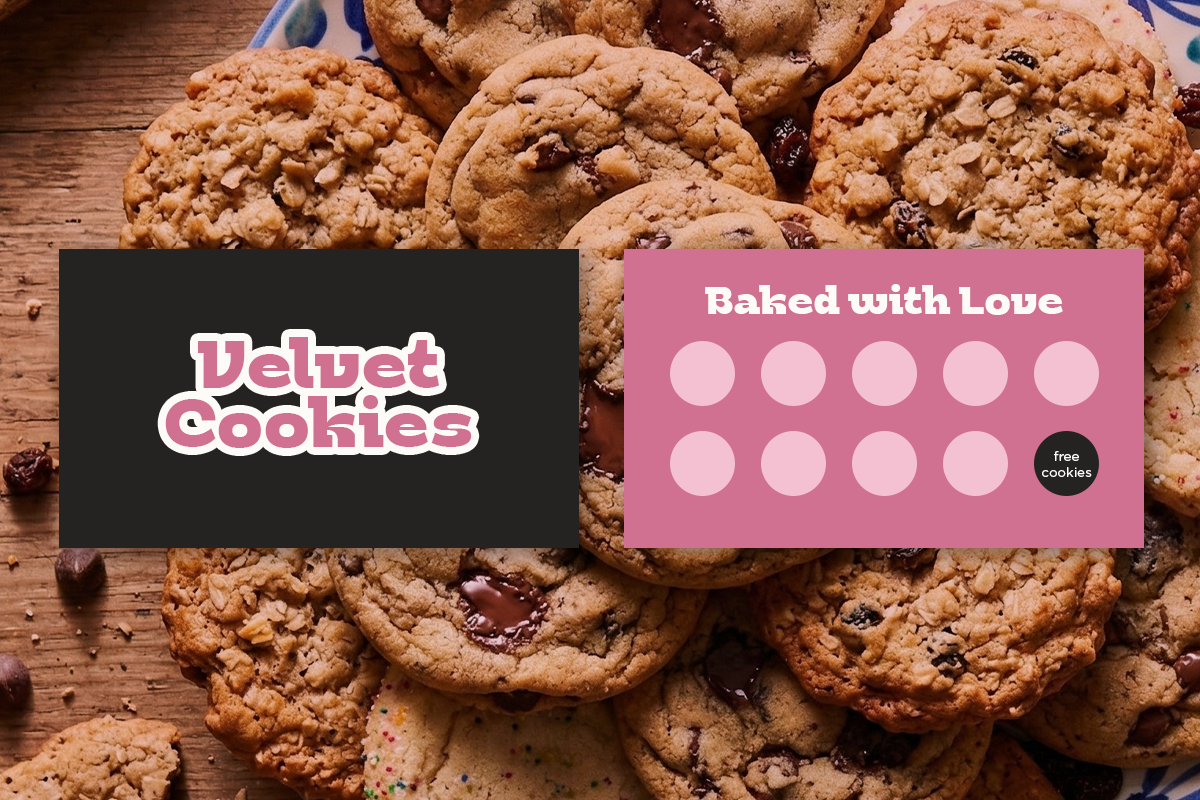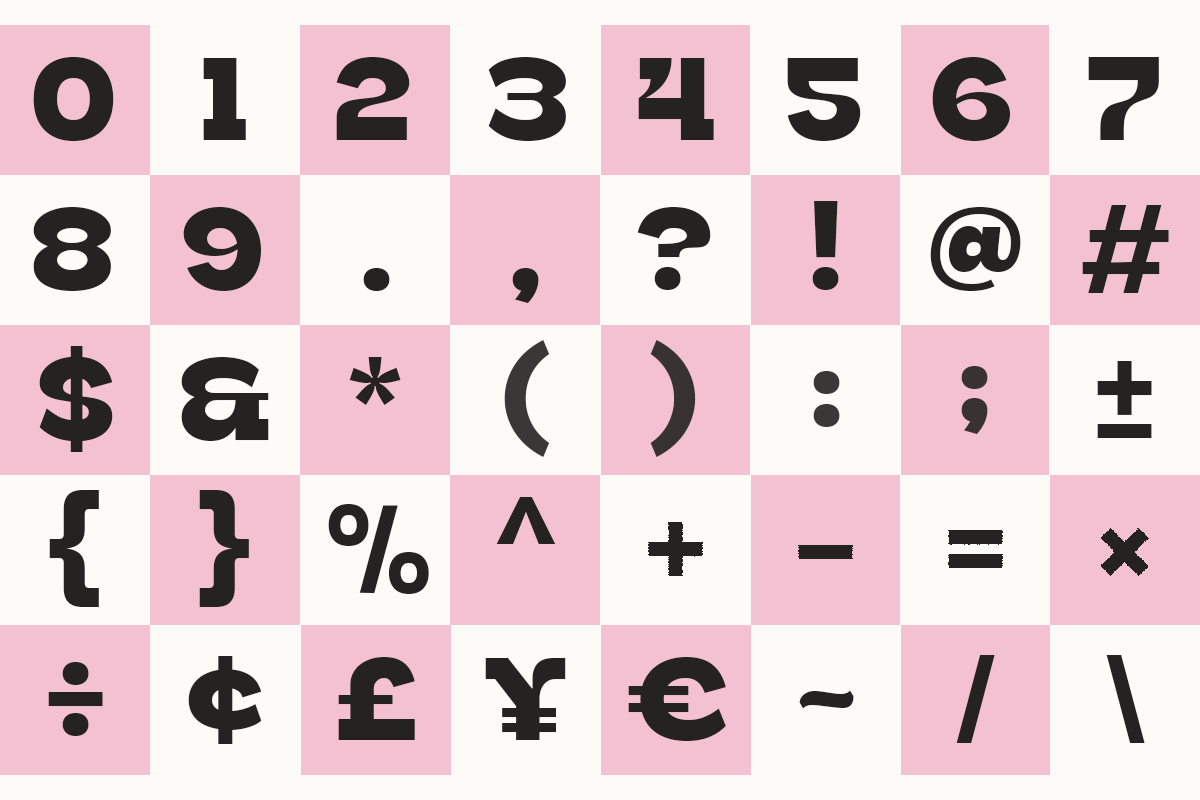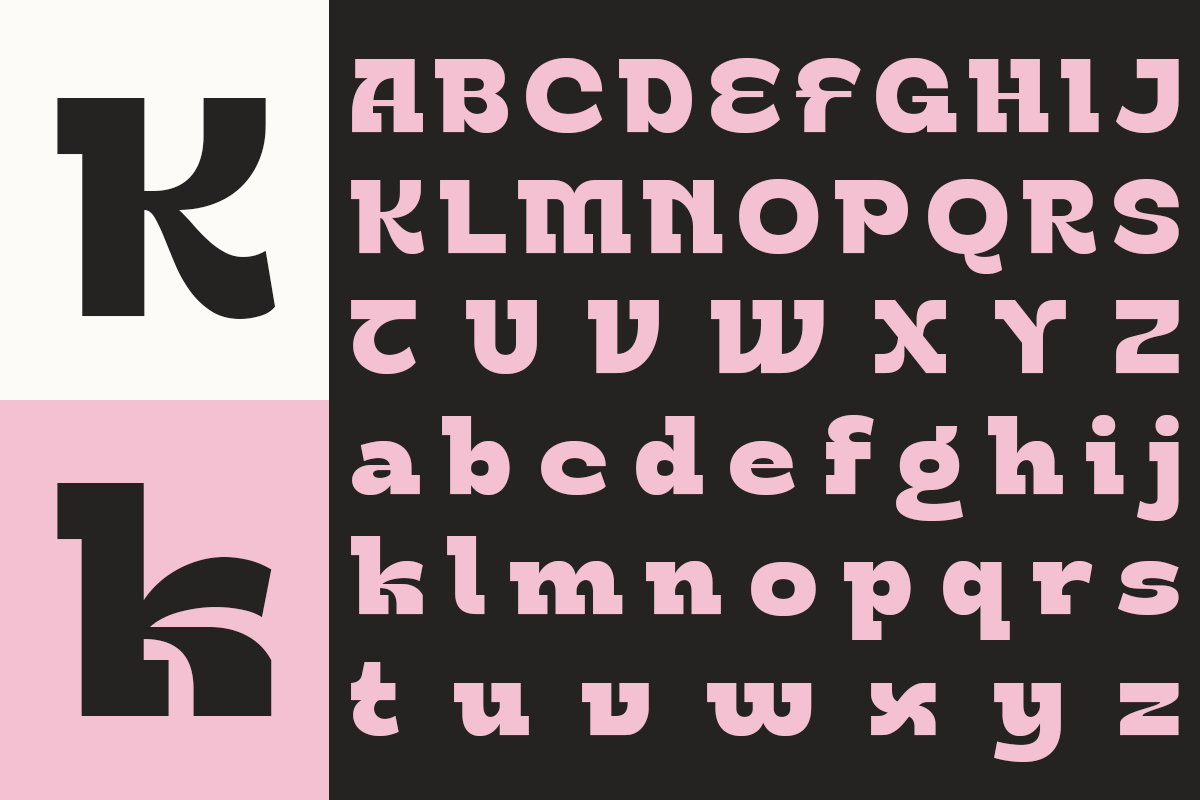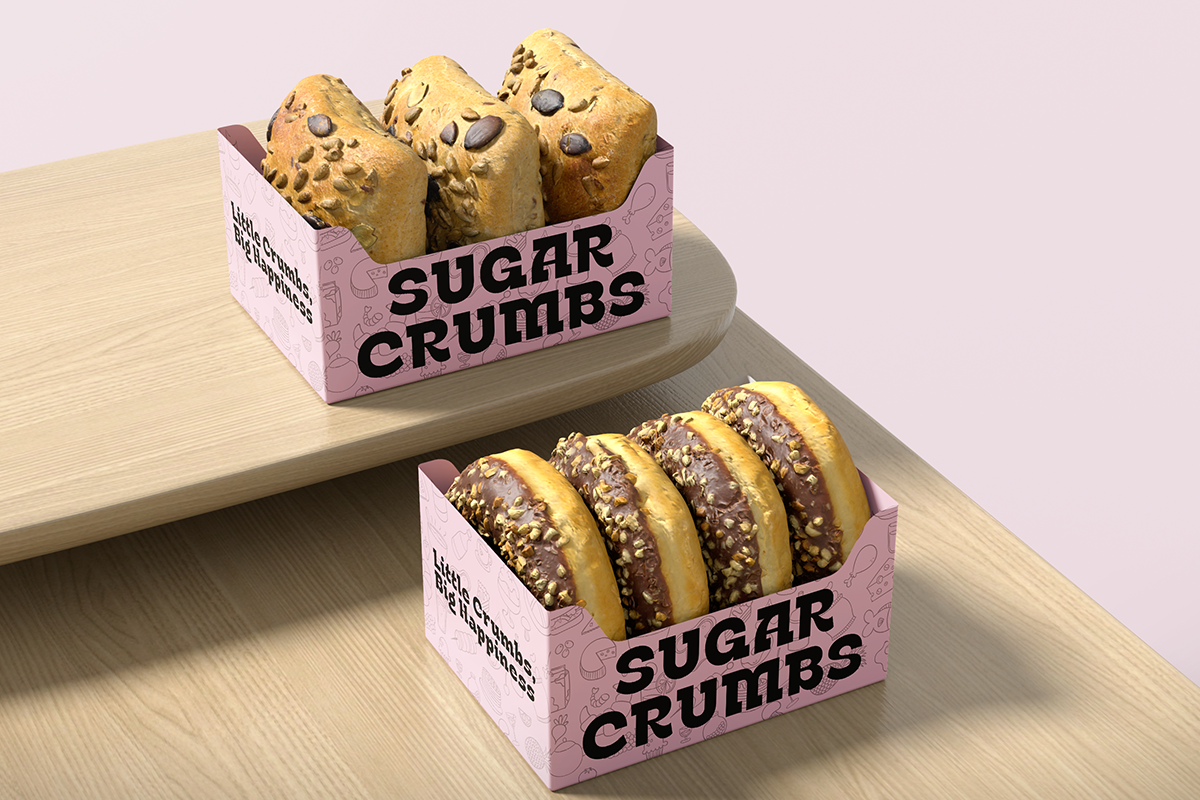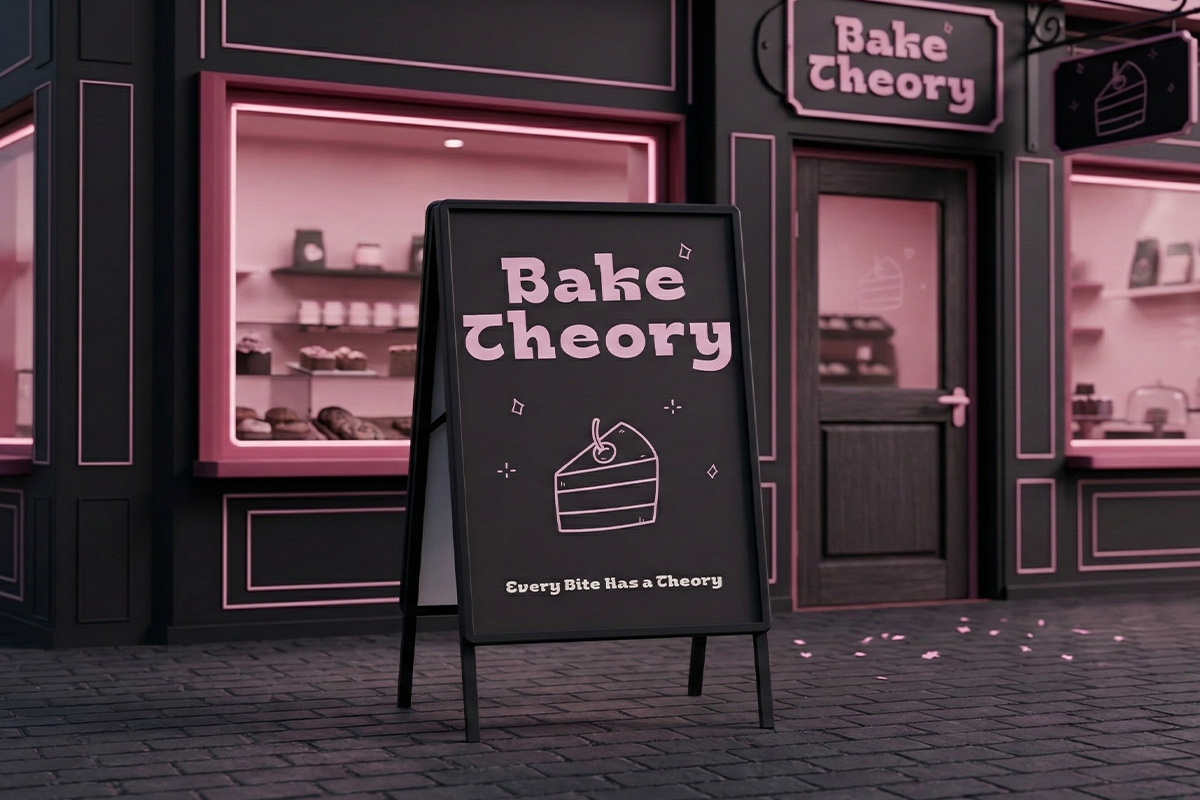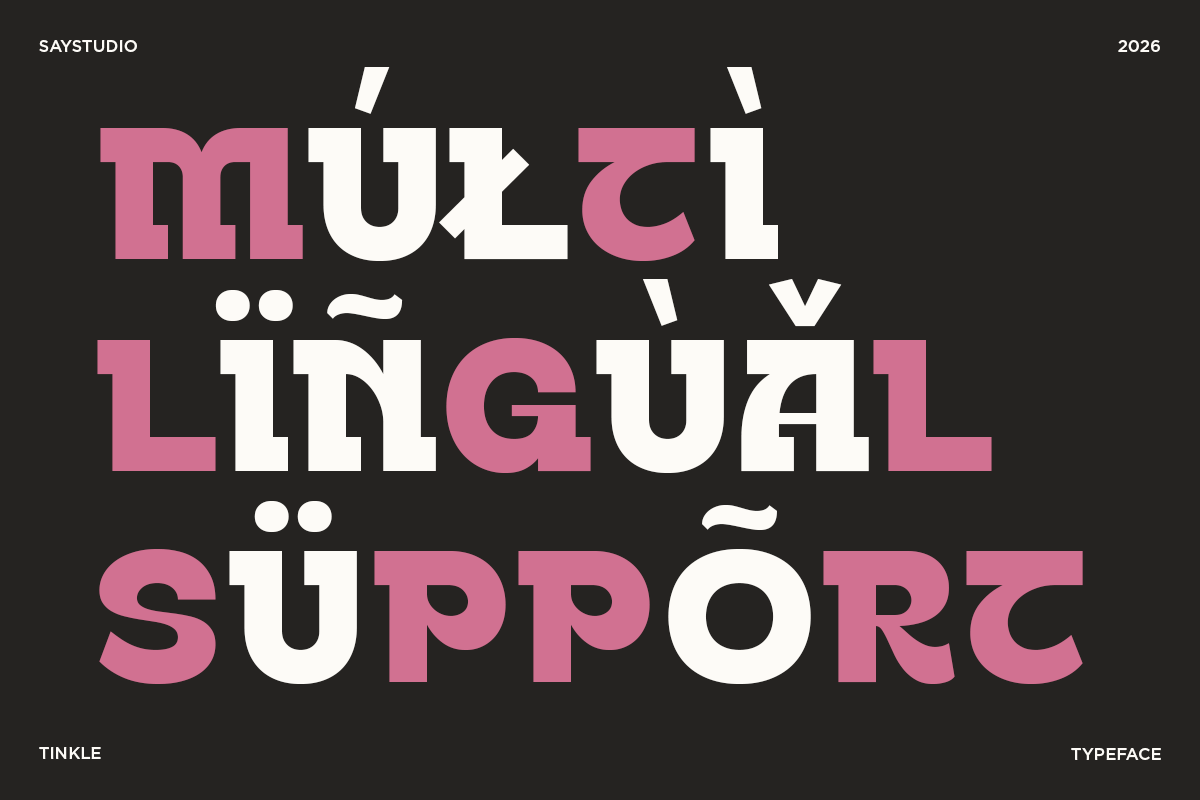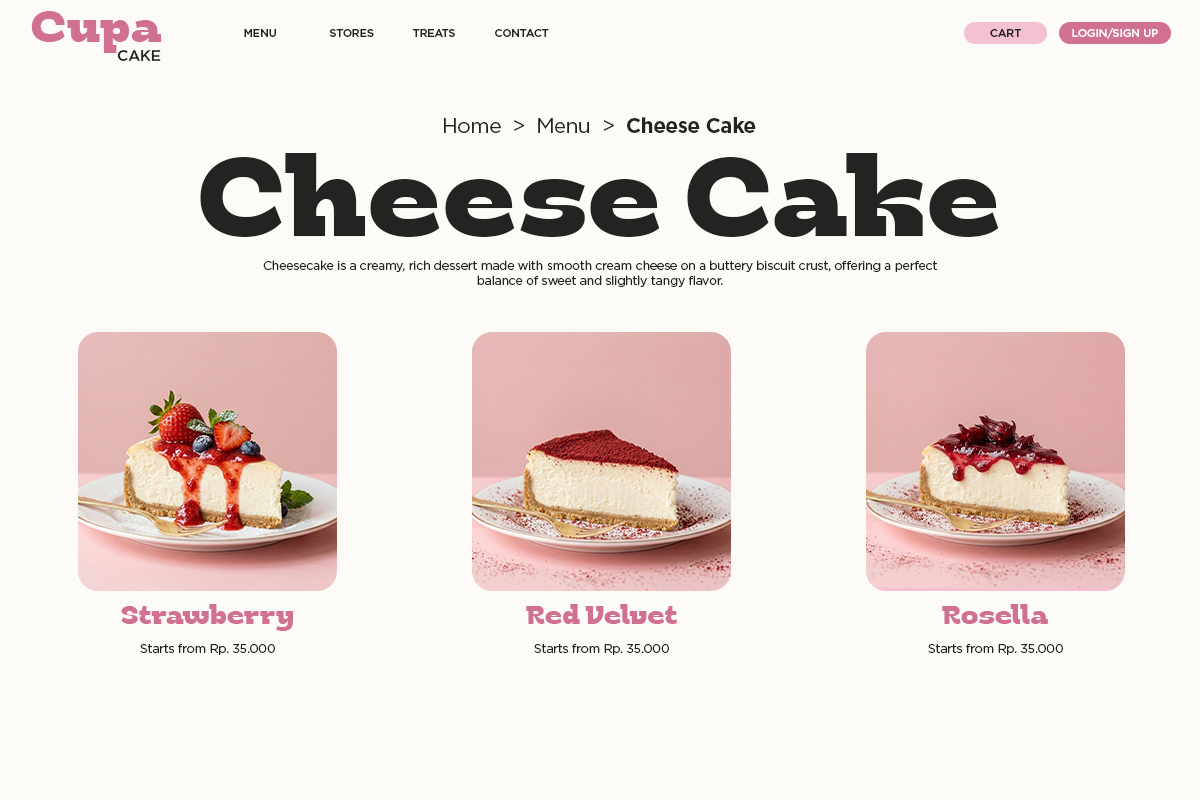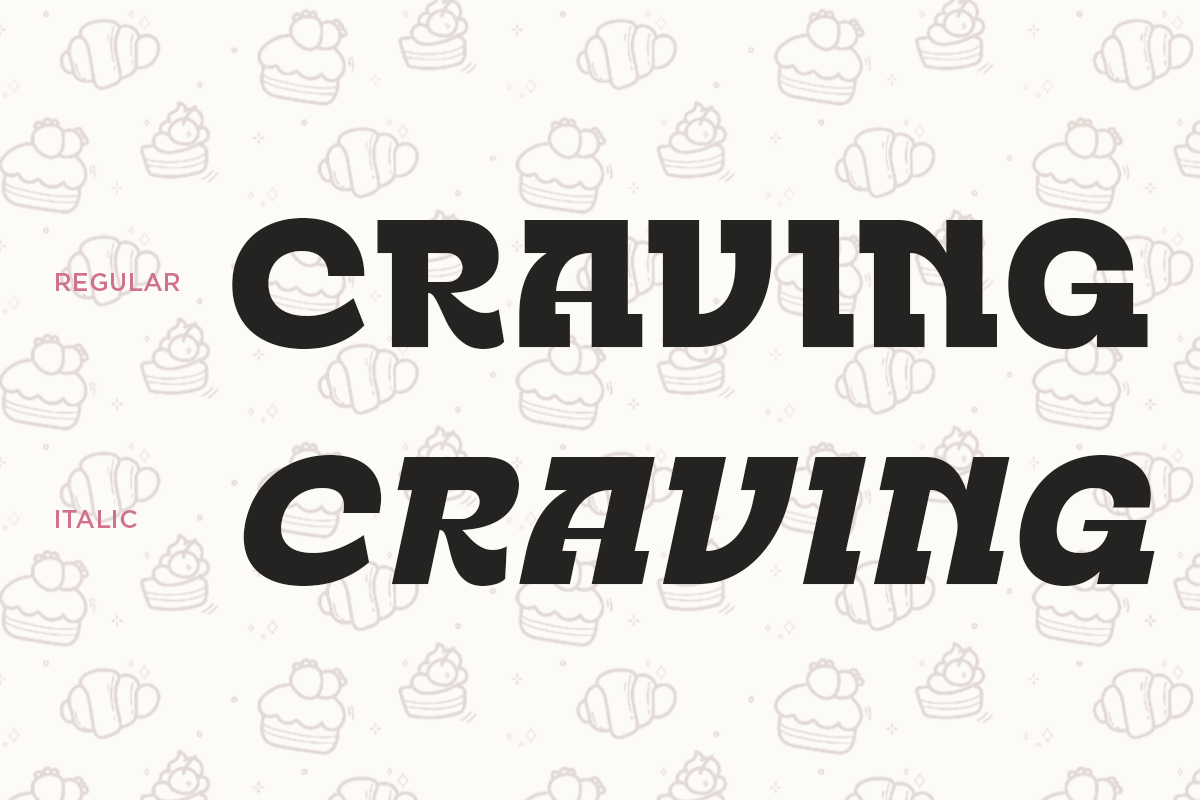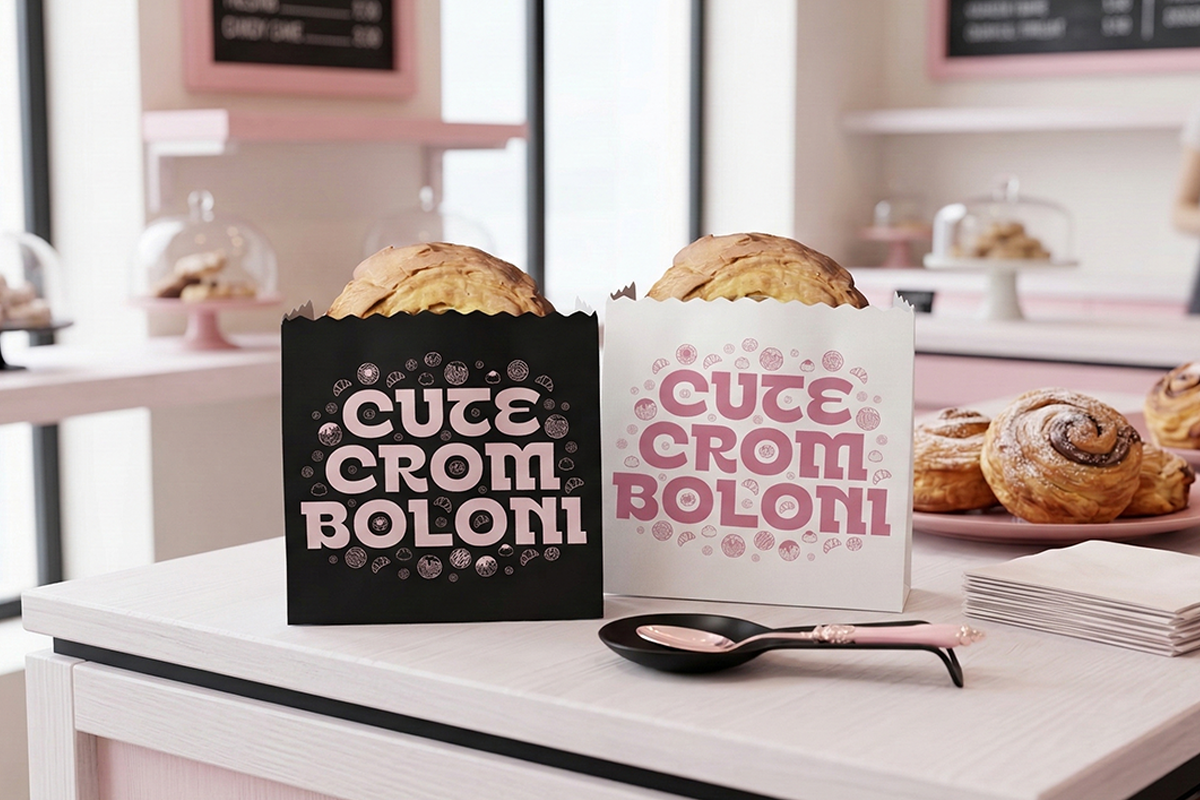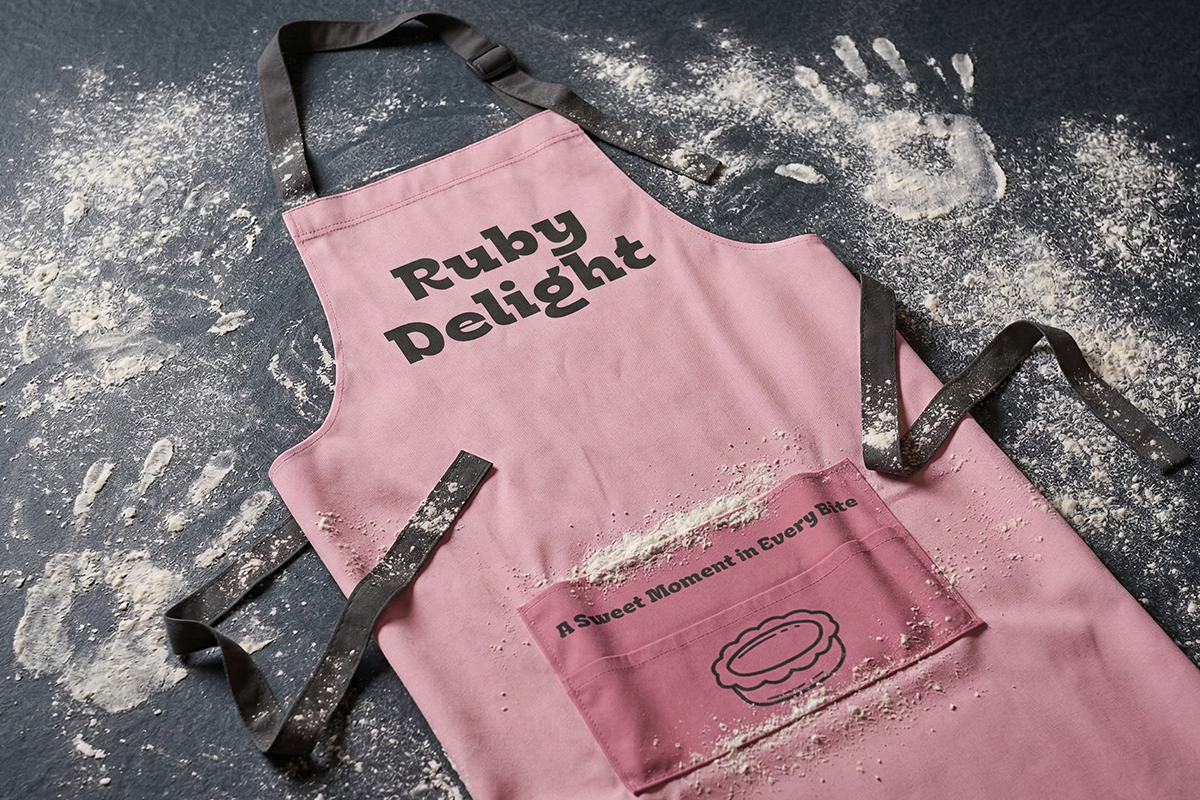
Tinkle - Playful Display Serif
Tinkle is a playful display serif font designed to bring charm, personality, and creative energy into modern design projects. With its bold shapes, soft curves, and distinctive character details, Tinkle delivers a fun yet stylish typographic look that easily grabs attention. The playful design makes it perfect for expressive and eye-catching visual compositions.
Ideal for creative branding, product packaging, posters, social media graphics, kids design, and modern advertising, Tinkle adds a cheerful and friendly personality to any layout. Its strong display style makes headlines stand out while maintaining readability and a modern aesthetic.
Whether used for branding, logo design, packaging, or digital content, Tinkle helps designers create vibrant and memorable visual identities. The font blends playful expression with contemporary display typography, making it a versatile choice for bold and creative design projects.